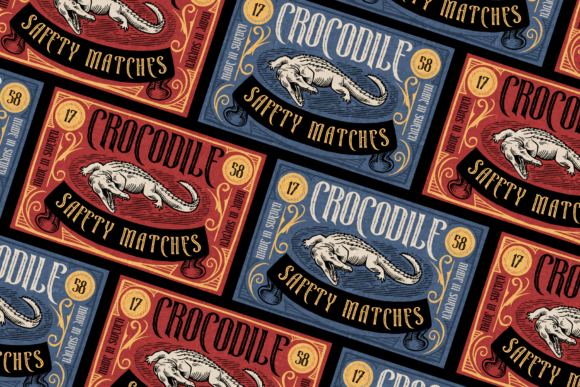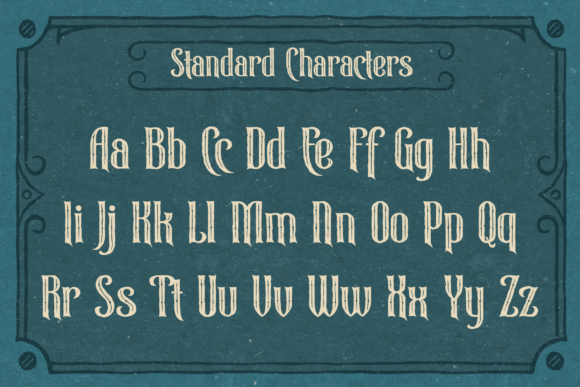
Bizartum Font
Bizartum is a vintage victorian font with a style that doesn’t have solid strokes, so the edges are not neat. Coupled with the middle feature that has a vertical hole. This is a classic font, suitable for creating branding designs on liquor labels. Besides that, it works great for retro brand designs or brands that require a classic design.